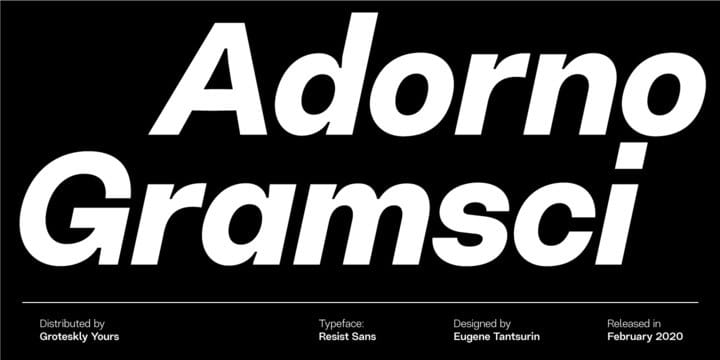
Resist Sans is a free-spirited neo-grotesque that embodies both the innate desire for revolt and a tendency towards uniformity.
While Resist Sans preserves the neat, minimalist look which is associated with neo-grotesques, it also accentuates the tentativeness of each letter form. The name, too, hints at the rebellious character of the typeface. Resist Sans comes in 20 styles (10 uprights and matching obliques).
- Designer: Eugene Tantsurin